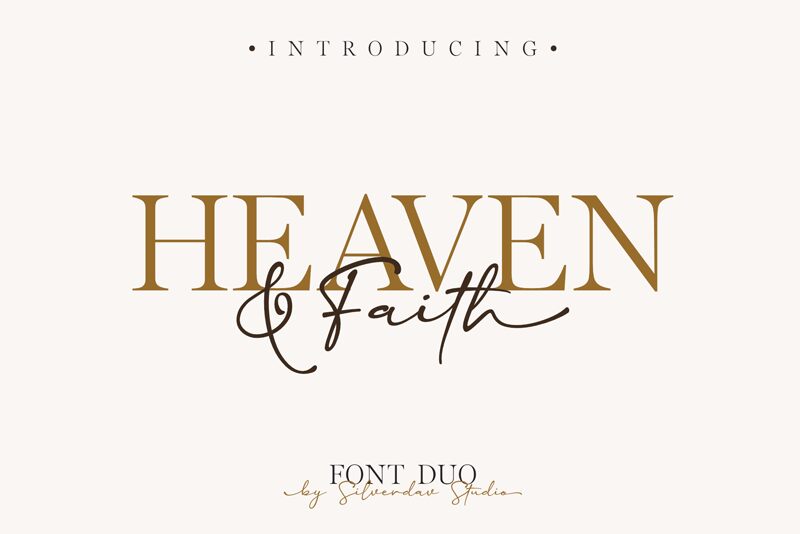
Heaven & Faith Script font by Silverdav Studio captivates with its elegant handwritten and signature style. This light font exudes sophistication and grace, making it an ideal choice for personal branding, event invitations, and creative projects. Its fluid lines and delicate curves create a sense of movement, drawing the eye effortlessly across any design.
With its unique charm, this free font is perfect for designers seeking to add a touch of personality and elegance to their work. Whether you're crafting a logo or designing wedding invitations, Heaven & Faith Script elevates your project with its distinct aesthetic.
Heaven & Faith Script
Silverdav Studio